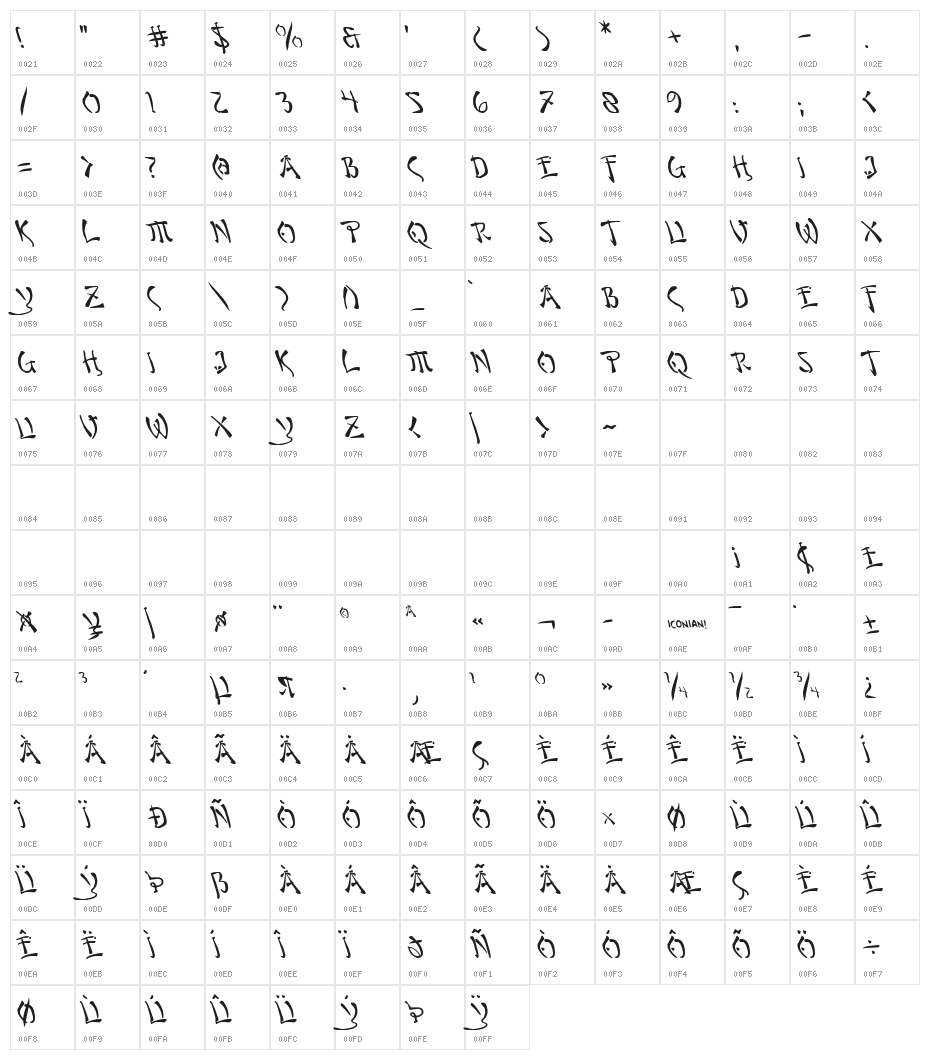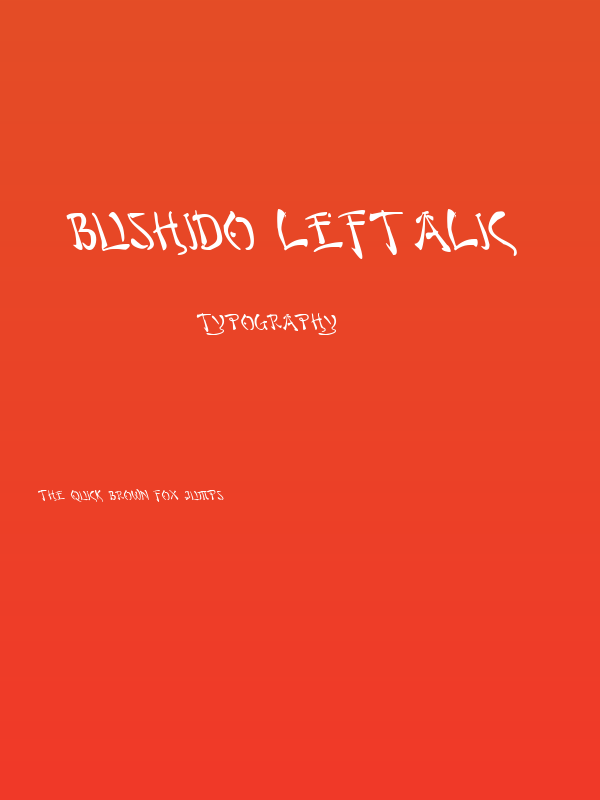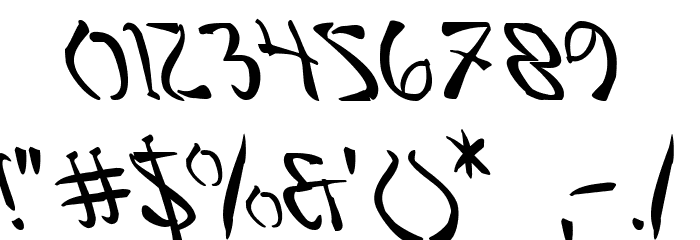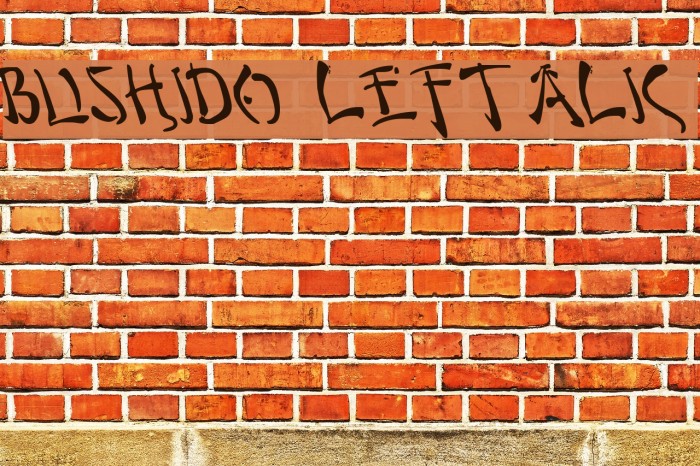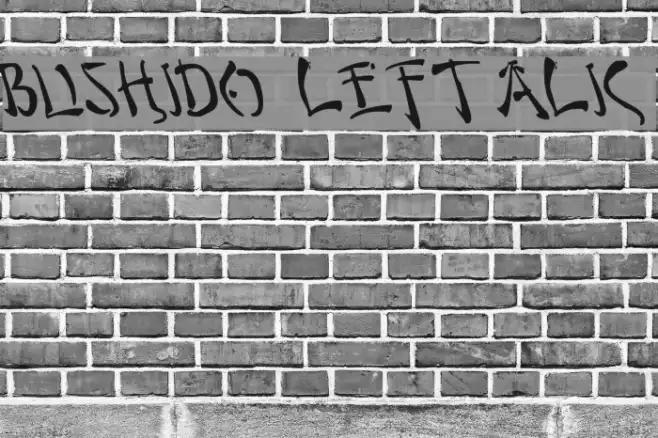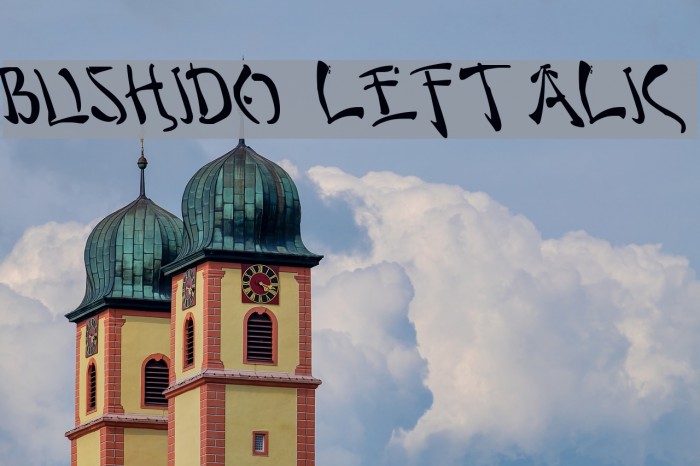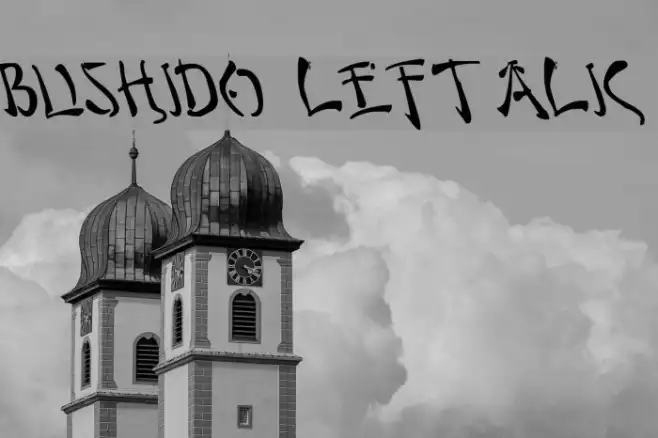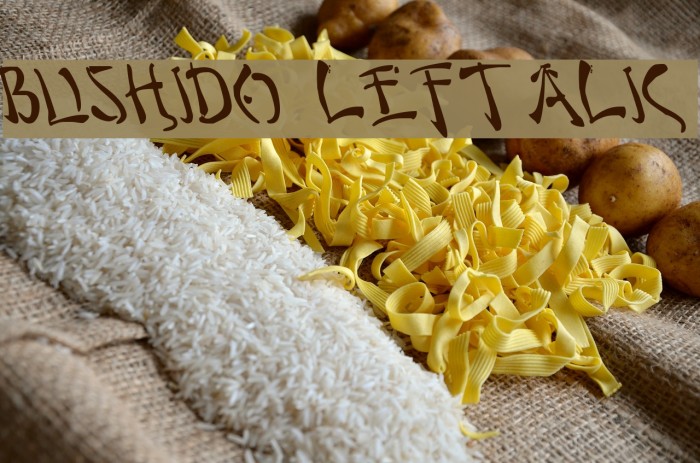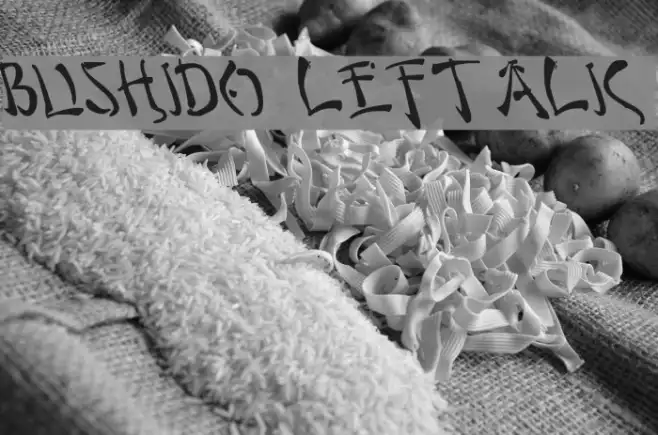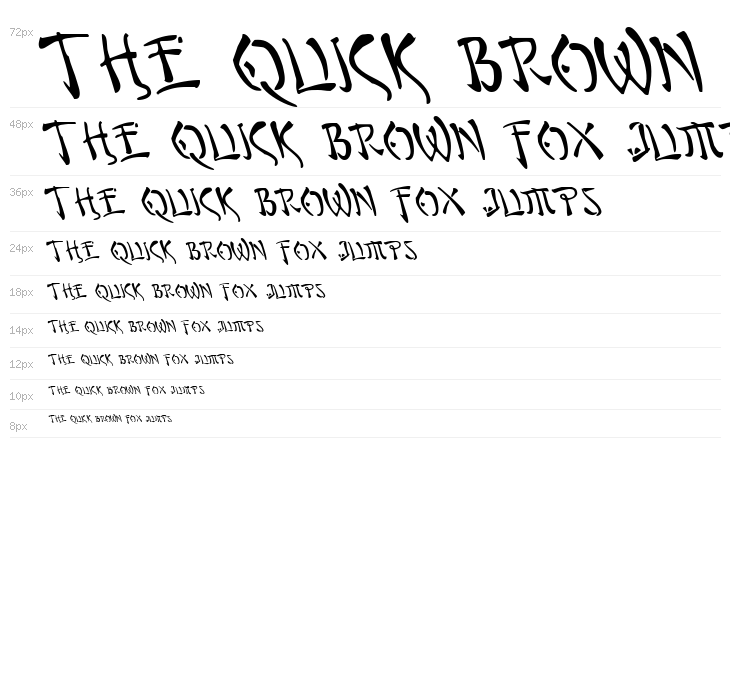
Bushido Leftalic Font
Bushido Leftalic Description
This font features a bold, dynamic style with a distinct calligraphic influence, characterized by sharp angles and fluid strokes. The uppercase and lowercase letters exhibit a unique flair, with exaggerated curves and a sense of movement that suggests a handwritten aesthetic. The numerals and special characters maintain this energetic style, making the font suitable for projects that require a strong visual impact. The overall appearance is both artistic and edgy, with a touch of traditional calligraphy blended with modern design elements.
BUSHIDO-LEFTALIC UPPERCASE
BUSHIDO-LEFTALIC LOWERCASE
BUSHIDO-LEFTALIC OTHER CHARS